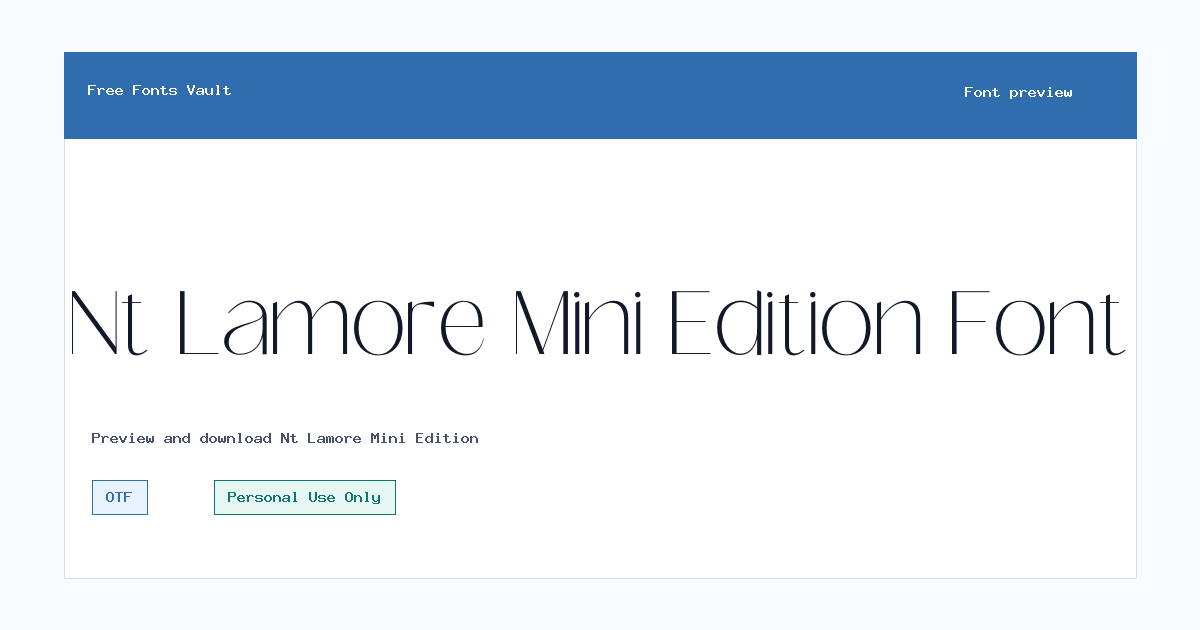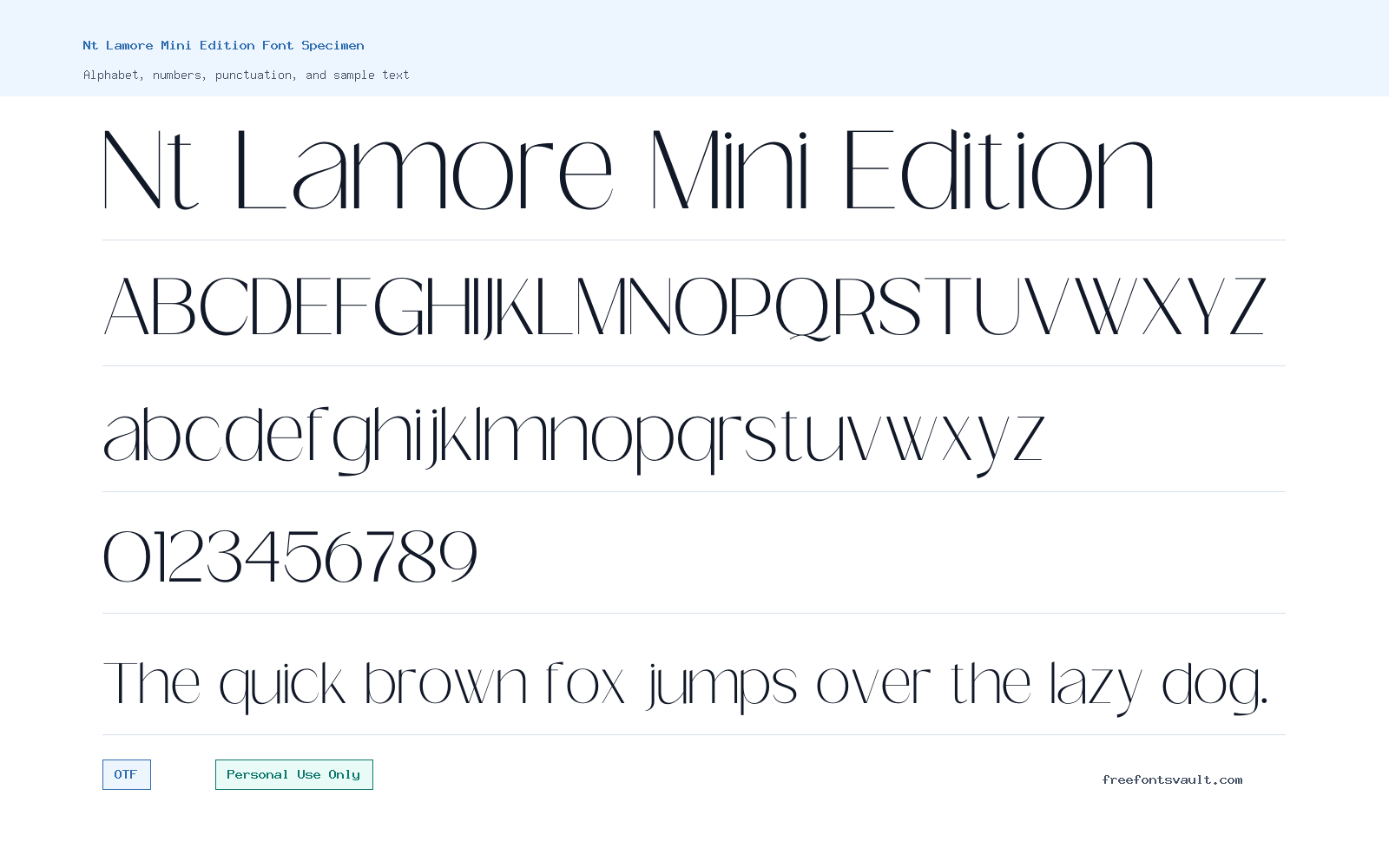
Nt Lamore Mini Edition
Nt Lamore Mini Edition font.
Nt Lamore Mini Edition is a display-style font with a clean regular weight, built for short text that needs a polished, modern look. It is best treated as a personal-use font unless you confirm a separate commercial license from the creator or foundry.
About Nt Lamore Mini Edition
Nt Lamore Mini Edition comes in a regular OTF font file with normal style and 400 weight. That makes it simple to test in a preview tool: type a brand name, a short heading, a quote, or a few menu-style words and look closely at spacing, letter shapes, and overall balance. Since only one weight is included, the font works best when it is used with a clear visual role instead of being asked to handle a full typographic system on its own.
Use Nt Lamore Mini Edition where the text can stay short and intentional. It can suit social graphics, personal branding drafts, invitation mockups, packaging concepts, portfolio headers, mood boards, and other personal design experiments. For longer paragraphs, pair it with a neutral sans serif or readable serif so the display font can carry the title while the companion font handles body copy. Before downloading, test uppercase, lowercase, numbers, punctuation, and any special characters you need, because display fonts can vary in how complete or comfortable they feel across different text settings.
- Useful for short display text, headings, mockups, and personal design previews
- Best paired with a readable body font for longer layouts
- Personal logo concepts and branding drafts
- Social media titles and quote graphics
- Invitation, card, and poster mockups
- Portfolio headers and creative presentation covers
- Packaging or label concepts for non-commercial preview work
What kind of projects is this font best for?
It is best for short display uses such as personal logo drafts, headings, posters, invitations, social graphics, and creative mockups. For long paragraphs, pair it with a more readable text font.